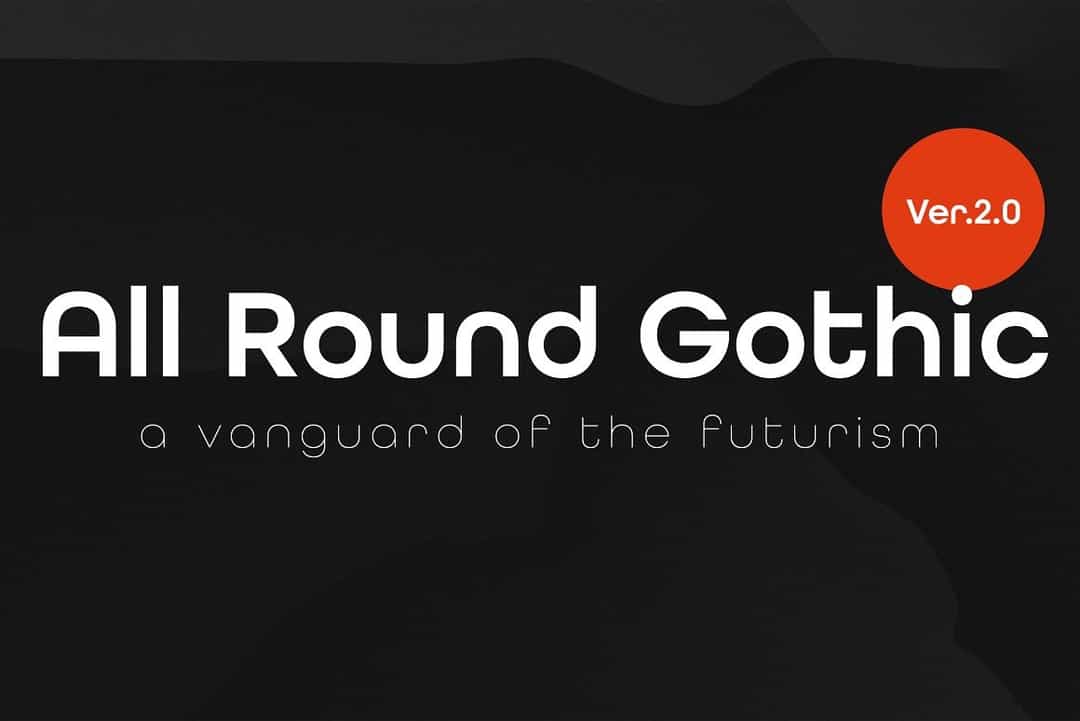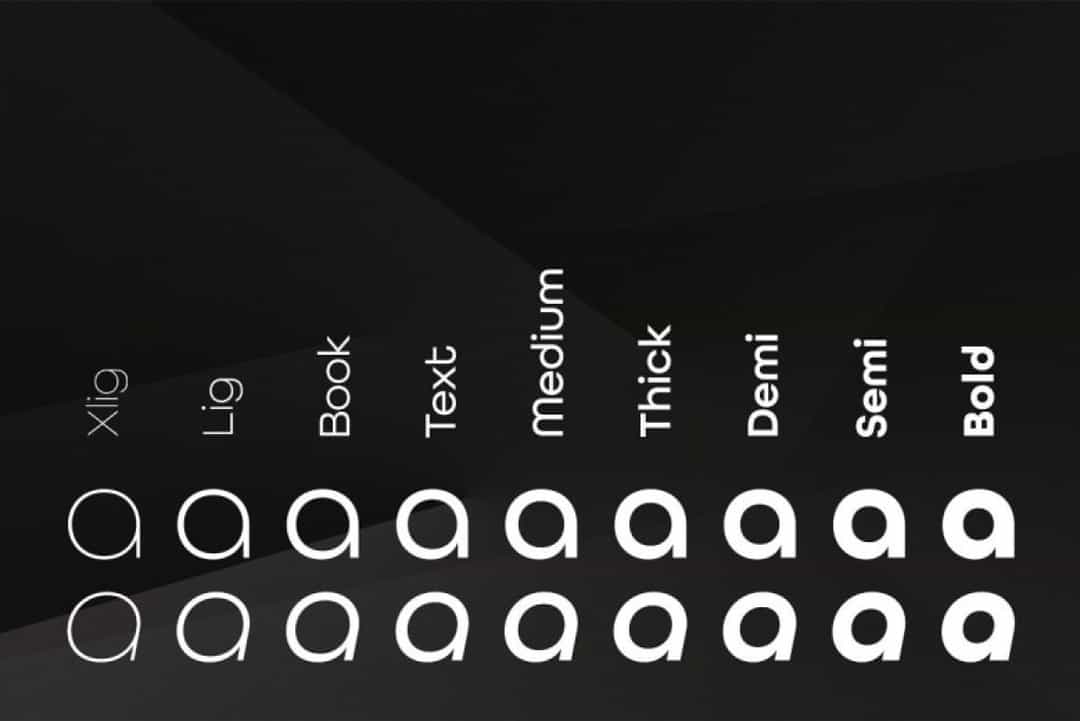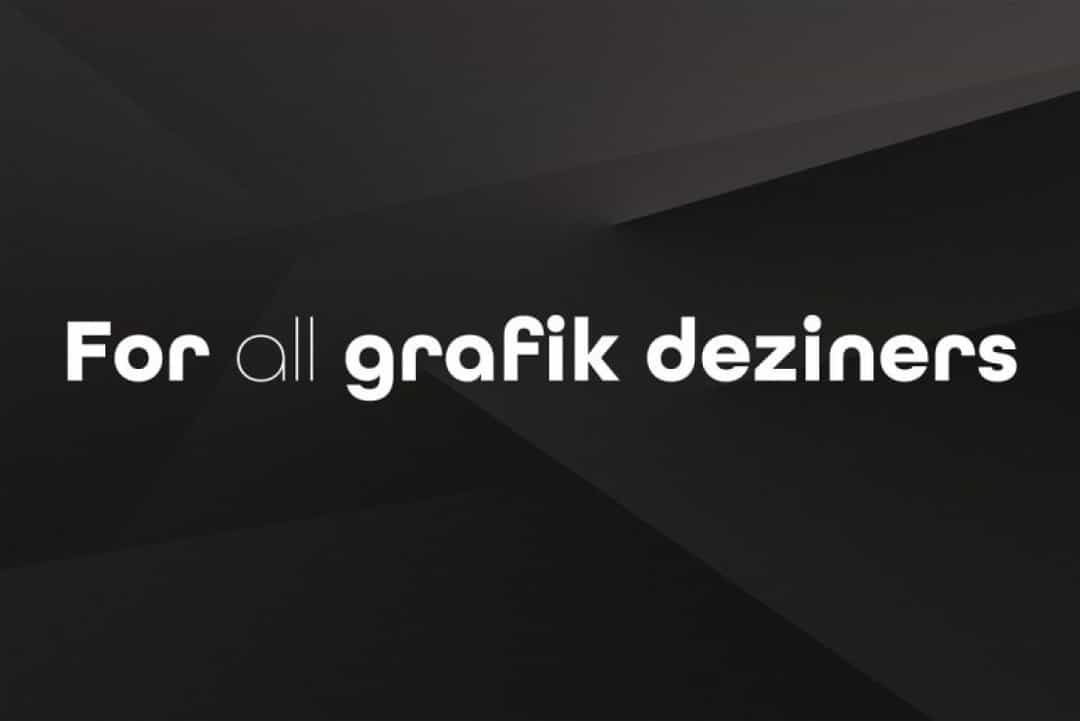
All Round Gothic was first designed by Ryoichi Tsunekawa in 2012. Inspired by Avant Garde Gothic and Futura sans serif typefaces, All Round Gothic is a geometric sans serif with adorable and sweet atmospheres created by its removal of stems that are not needed; while its bowls featuring non-perfectly geometric circles create an organic impression.